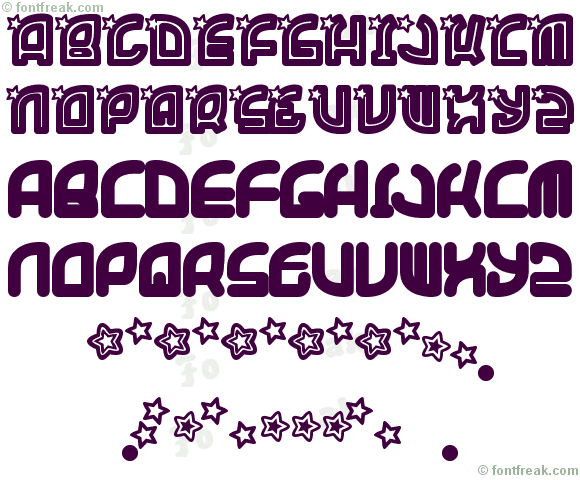
SuperTrooper
Super Trooper, created by Font-a-licious Fonts in 1998, is a charming decorative typeface that captures a playful and bold aesthetic. This font features rounded, chunky letterforms with a lively character, making it ideal for designs that require a touch of whimsy and fun. The stroke weight is consistent, lending a sense of stability to its dynamic appearance, while the moderate contrast between thick and thin lines adds visual interest. The generous spacing between characters ensures readability, making it suitable for a variety of applications.
This font excels in various creative scenarios. It is perfect for crafting eye-catching wedding invitations that evoke joy and celebration. Its playful nature also makes it an excellent choice for vibrant movie posters that aim to attract attention and convey a sense of adventure. Additionally, Super Trooper can enhance restaurant menus, particularly those seeking to create a friendly and inviting atmosphere. Small business owners can utilize this font for marketing materials that require a distinctive and memorable identity. Content creators will find it a delightful option for social media graphics that need a touch of personality.
Targeting graphic designers, small business owners, and content creators alike, Super Trooper stands out with its unique blend of charm and versatility. The font's ability to infuse energy into any project makes it a valuable asset for anyone looking to make a statement. With its freeware license, the Super Trooper font free download allows users to incorporate this delightful typeface into their designs without any cost. Whether you're designing for print or digital media, Super Trooper offers a refreshing and engaging option that will certainly capture your audience's attention.